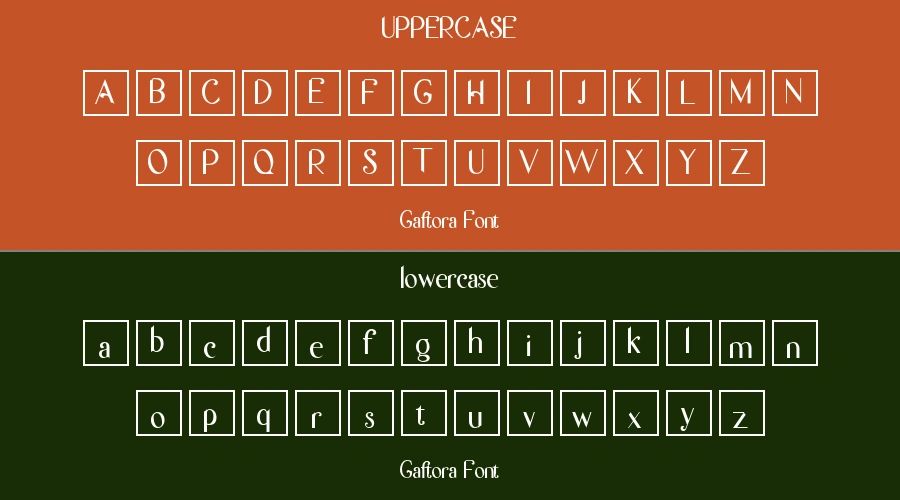
About Gaftora Font
Gaftora Font stands out for its distinctive combination of calligraphic strokes and enduring style. Ideal for album artwork, it provides the professionalism and quality certification that professional projects demand. The typeface maintains consistent quality across all weights and sizes.
Key features include refined harmonious shapes and practical beginning forms, enhancing typographic expression. In footnotes applications, Gaftora Font demonstrates exceptional special character access. The aperture size and historical references contribute to its distinctive character and professional appeal.